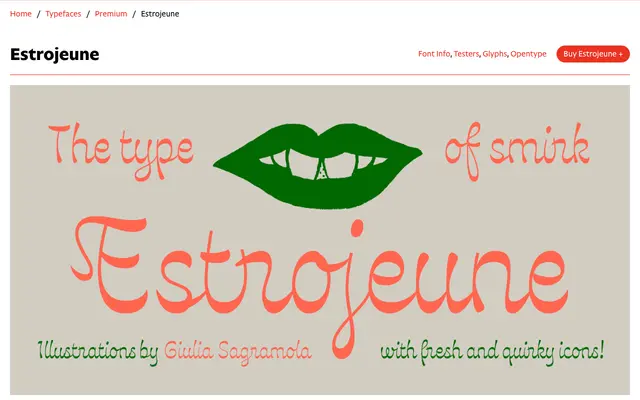
Estrojeune
An upright display script by Valentina Casali with horizontal contrast and extensive OpenType contextual alternates, referencing Aldo Novarese's Estro of 1961.
Designed by Valentina Casali at CAST and developed between 2023 and 2025, the face takes its name and horizontal contrast from Novarese's Estro (Nebiolo, 1961) while adopting the fluid rhythm of a script. Narrow proportions and a generous x-height suit headlines, packaging and festival branding; positional OpenType features trigger automatic glyph substitutions within words, and swash capitals enable distinctive drop caps. The glyph set extends to arrows, astronomical and astrological symbols, and gender and sexual orientation marks.
An upright, non-connecting script with horizontal stroke contrast, designed as a display face with fluid, sinuous letterforms. The foundry explicitly describes it as a script face, distinct from its serif or sans-serif relatives.